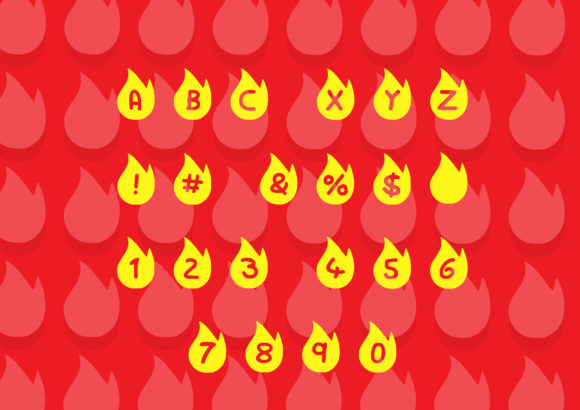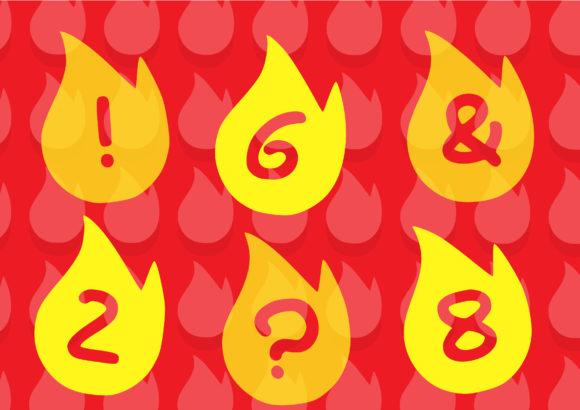
Introduction to Play Flame Font
Add fierce typography to your creative designs by using this unique decorative font.
It contains characters in flames that will set your creative projects on a fiery success path .
Why Choose Play Flame Font?